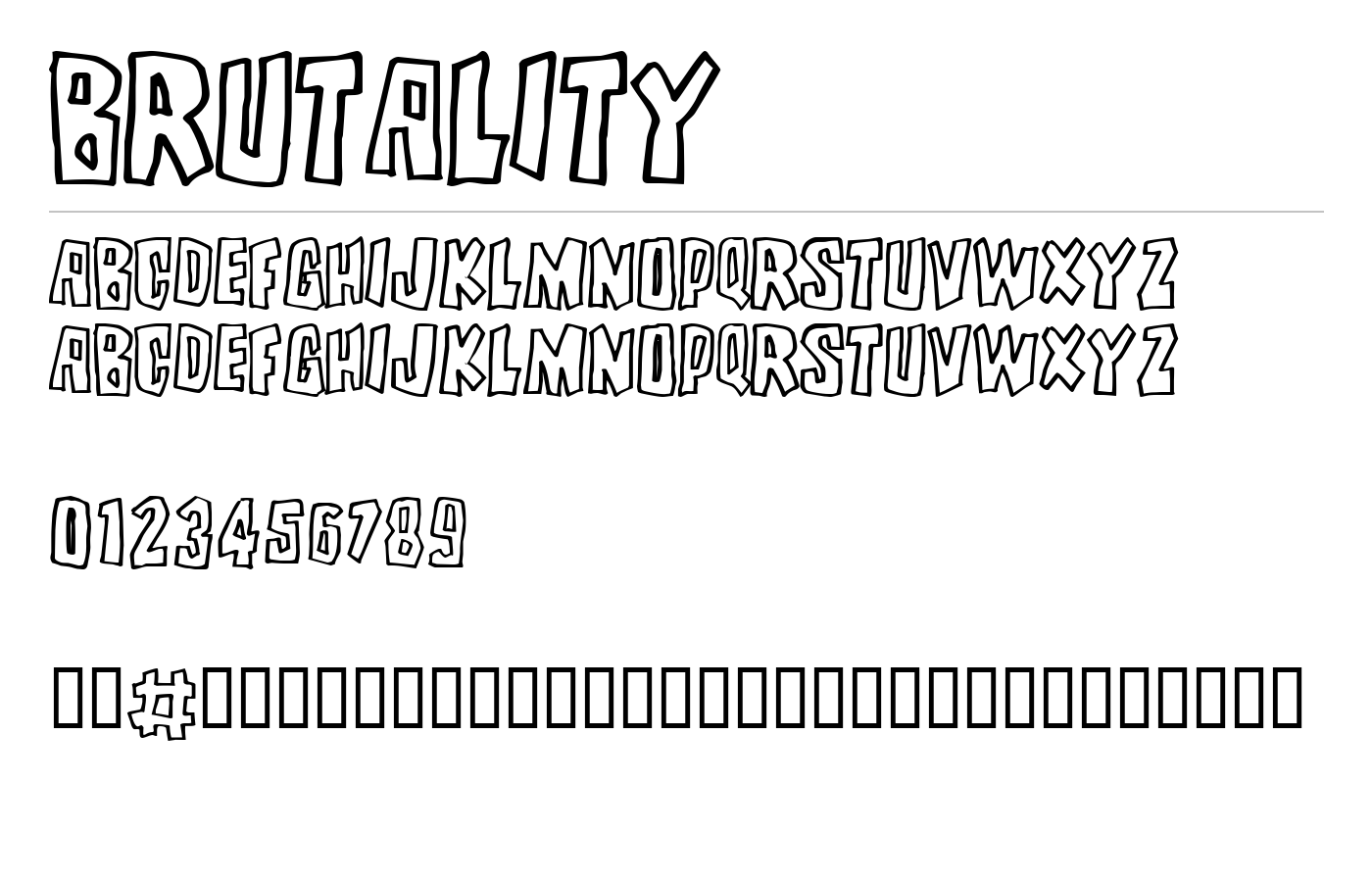
Brutality Font is a bold, hand-drawn sans serif with an edgy, irregular style that conveys energy and rawness. Its playful, chunky letterforms and uneven outlines create a sense of rebellious fun, making it perfect for eye-catching headlines, posters, and branding that wants a youthful, unconventional vibe. This font works well where a bold, informal statement is needed to grab attention and express personality.
Brutality Font
About Brutality Font